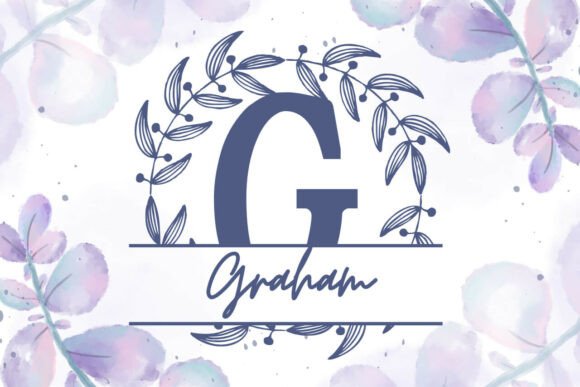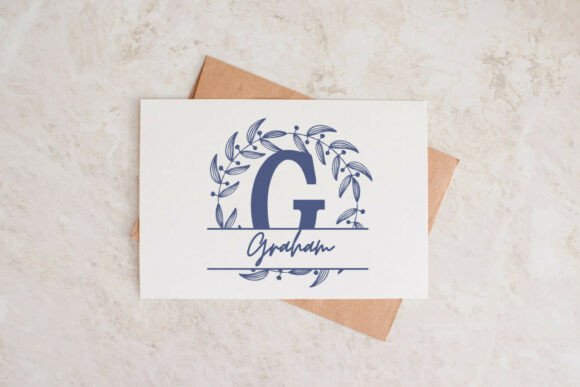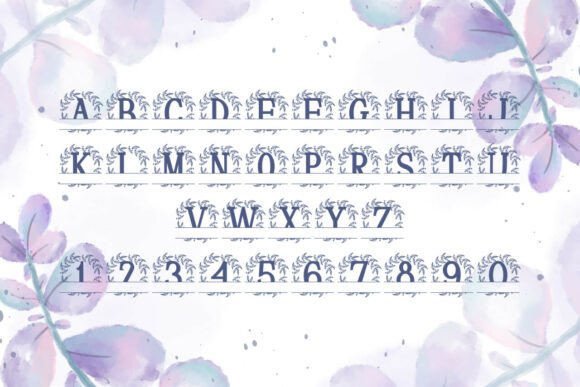
Introduction to Elmsworth Split Monogram Font
Have you ever found yourself in a moment of creative bliss, surrounded by papers, glue, and an endless supply of glitter, desperately trying to come up with the perfect gift or decoration for a loved one? This is where the Elmsworth Split Monogram Font comes in – a game-changing design resource that makes personalization a breeze.
As a designer, you know how valuable high-quality fonts can be. That’s why we’re excited to introduce the Elmsworth Split Monogram Font, a beautiful and versatile font that lets you create stunning, name-ready emblems in seconds. With its clean, balanced letterforms and precise horizontal split, this font is perfect for creating transparent backgrounds and adding a touch of elegance to your creative projects.
Key Features of Elmsworth Split Monogram Font
- High-quality design resource suitable for various creative projects, including logos, invitations, and branding materials.
- Unique monogram design with a split layout, offering a distinctive and modern aesthetic for any project.
- Available in a transparent background option, allowing for seamless integration with various design elements and backgrounds.
Honest Review: Elmsworth Split Monogram Font
I recently stumbled upon the Elmsworth Split Monogram Font, and I’m excited to share my honest review with you. As a designer, I’m always on the lookout for high-quality design resources to elevate my creative projects. The Elmsworth Split Monogram Font definitely delivers.
Here’s what works well: ✨ The font is incredibly versatile, making it perfect for a wide range of designs, from invitations to branding materials. The split monogram design is unique and eye-catching, adding a touch of sophistication to any project. Plus, the transparent background option allows for seamless integration with various design elements.
Pros and Cons:
- ✨ High-quality design: The font is well-crafted and looks great on various devices
- ✨ Transparent background option: Adds flexibility to your design
- ⚠️ Limited font styles: Currently only available in a single style
- ⚠️ May not be suitable for very small text sizes: The font can appear pixelated at very small sizes
Overall, I’m impressed with the Elmsworth Split Monogram Font. While it’s not perfect, its unique design and high-quality construction make it a valuable addition to any designer’s toolkit. Whether you’re working on a personal project or a commercial design, this font is definitely worth checking out.
The Elmsworth Split Monogram Font is a high-quality, versatile design resource ideal for creative projects. With a transparent background, this font can be easily integrated into various design applications.
The Elmsworth Split Monogram Font is suitable for a wide range of creative projects, including business cards, brochures, and social media graphics. Its high-quality design and transparent background make it an ideal choice for designers seeking a versatile and professional-looking font.